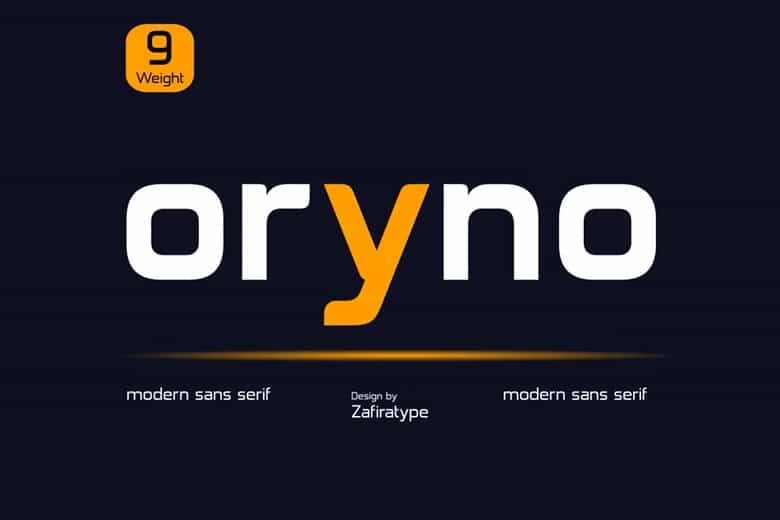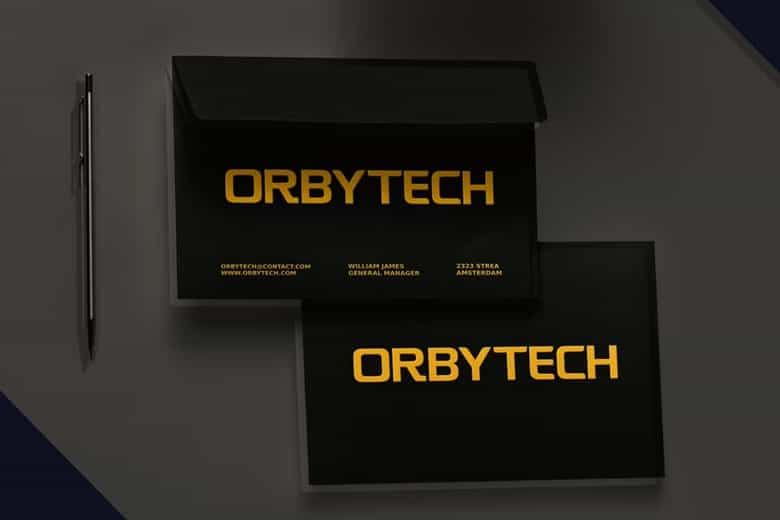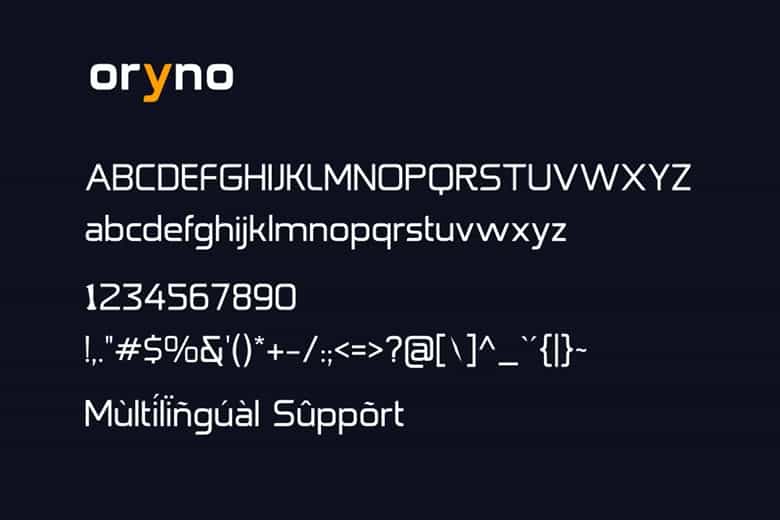
Oryno is an advanced sans serif typeface portraying both clarity and versatility. Oryno has 9 different weights, the heaviest being Black, the lightest Thin, providing everything a modern design needs, including minimal layouts and facial expressions. With its neat lines, harmonious proportions, and modern style, it is a great preference in brand, editorial design, UI design, etc.